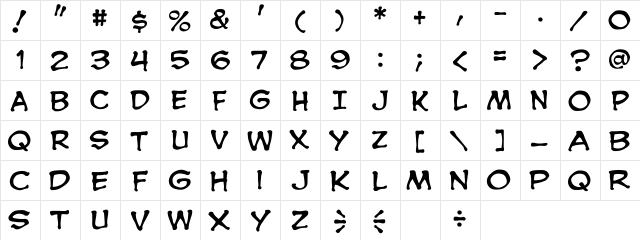
CCSpookytooth Regular
Design Context for CCSpookytooth
CCSpookytooth is a composed and adaptable typeface that performs quietly and consistently across a wide range of design contexts.
Pro Tip: Use CCSpookytooth in both headline and body roles to test its range before committing to a single application.